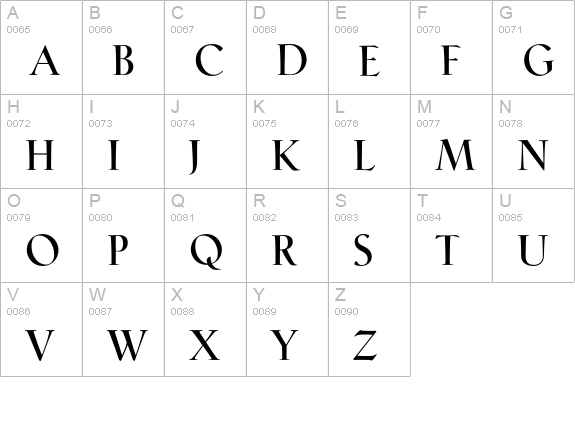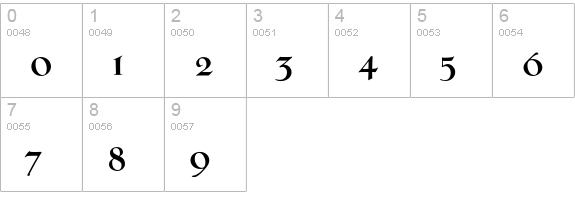
PhaistosBold Font Details
PhaistosBold font is a stunning typeface that exudes boldness and sophistication. With its strong and elegant letterforms, this font is perfect for adding a touch of modernity and flair to any project. Its clean lines and sharp edges give it a contemporary and professional appeal. What sets PhaistosBold font apart is not just its captivating design, but also its availability. This font is freely available to download at FontsMarket.com, making it accessible to anyone in need of a visually striking typeface. Whether you're a graphic designer working on a new branding project, a web developer looking to enhance the user experience, or even a student working on a creative assignment, PhaistosBold font is the ideal choice. With its versatility, PhaistosBold font can be used for a wide range of applications. From headlines and titles to logos and signage, this font will make a bold statement wherever it is used. Its legibility and readability ensure that your message will be conveyed with precision and impact. The attention to detail in PhaistosBold font is evident in every letterform, resulting in a harmonious and balanced typeface. Its unique combination of curves and angles gives it a distinctive character that stands out from the crowd. Whether you're looking to add a touch of elegance to a print design or create a striking website layout, PhaistosBold font will elevate your work to new heights. In addition to its aesthetic appeal, PhaistosBold font also offers excellent usability. Its well-defined letterforms ensure that it can be easily read in various sizes and contexts. This makes it a practical choice for both digital and print applications. When it comes to finding the perfect font, PhaistosBold font ticks all the boxes. Its bold and modern design, combined with its accessibility, make it a valuable asset for any designer or creative professional. Download PhaistosBold font for free at FontsMarket.com and unlock a world of possibilities for your next project.